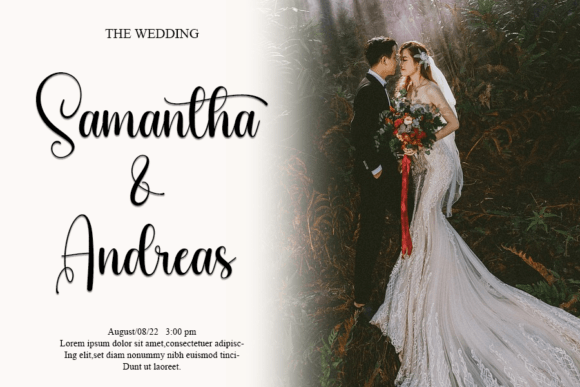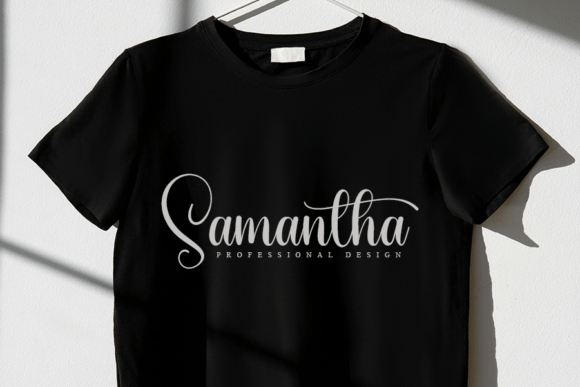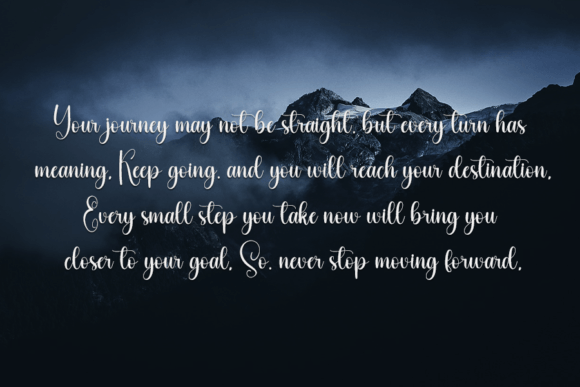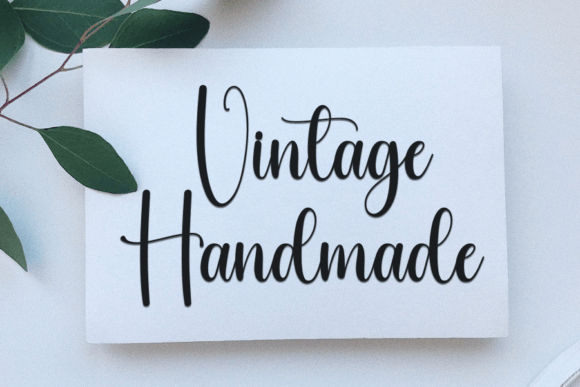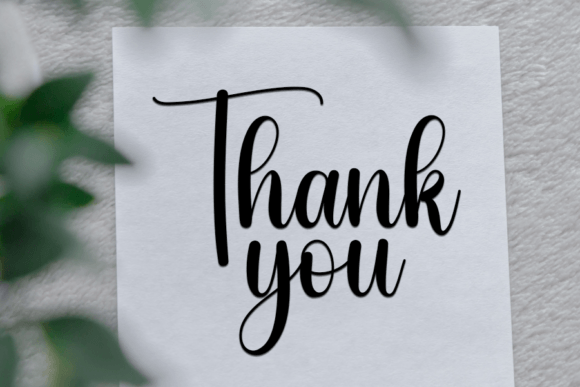
The Cozy Charm of Autumn Font: A Designer’s New Best Friend
I’ll never forget the design project that led me to discover the Autumn Font. I was working on a custom invitation for a friend’s fall wedding, and I was determined to create something truly special. As I scrolled through font after font, I found myself stuck – everything seemed either too formal or too bland. That’s when I stumbled upon Autumn Font, and it was love at first sight! ✨
An Honest Review of Autumn Font
So, what makes Autumn Font so special? Let’s dive into the good stuff and a few quirks I’ve discovered along the way.
- ✨ Delicate, handwritten charm that’s perfect for fall-themed designs
- ✅ Extensive character set, including glyphs and stylistic alternates
- ✅ Works beautifully for a variety of design projects, from invitations to food blogs
- ⚠️ Some users may find the font a tad too delicate for certain design applications
- 🤔 Limited availability of uppercase letters with decorative swashes
The Story Behind Autumn Font
While I couldn’t find a detailed account of Autumn Font’s creation, it’s clear that the designer aimed to craft a font that captures the essence of fall – warm, inviting, and delicate. Whether or not that’s the actual story, one thing’s for sure: Autumn Font has become a staple in many designers’ toolkits.
Q: What type of projects is Autumn Font best suited for?
A: Autumn Font is versatile and can be used for a variety of projects, including invitations, food blogs, titles, and more.
Q: Does Autumn Font support OpenType features?
A: Yes, Autumn Font comes with a range of OpenType features, including glyphs and stylistic alternates.